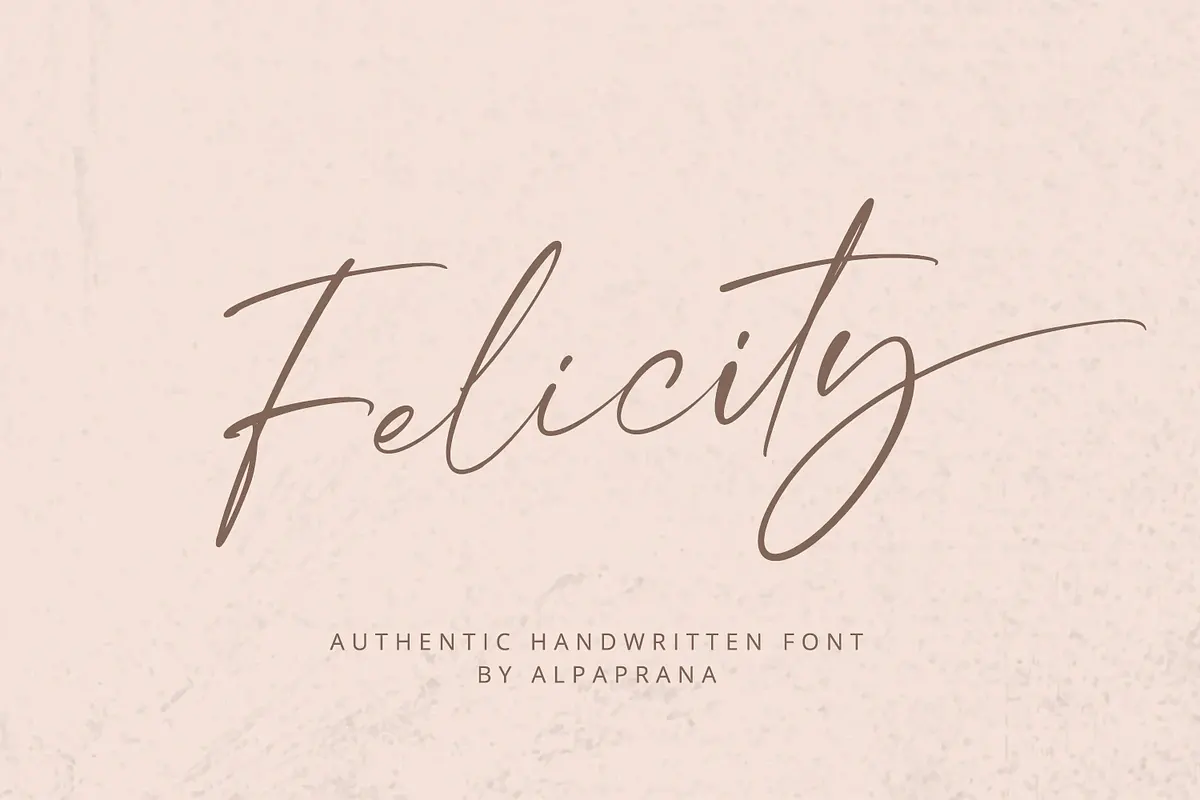
Felicity - Handwritten Font Free Download
Add a personal and elegant touch to your designs with Felicity - Handwritten Font Free Download. This beautiful handwritten font features smooth, flowing strokes that give your typography a natural and artistic feel, making it perfect for invitations, branding, social media graphics, and more.
Felicity offers a balanced mix of elegance and informality with its casual, yet refined look. It includes uppercase and lowercase letters, numerals, punctuation, and multilingual support, giving you the flexibility to experiment with a variety of creative layouts.